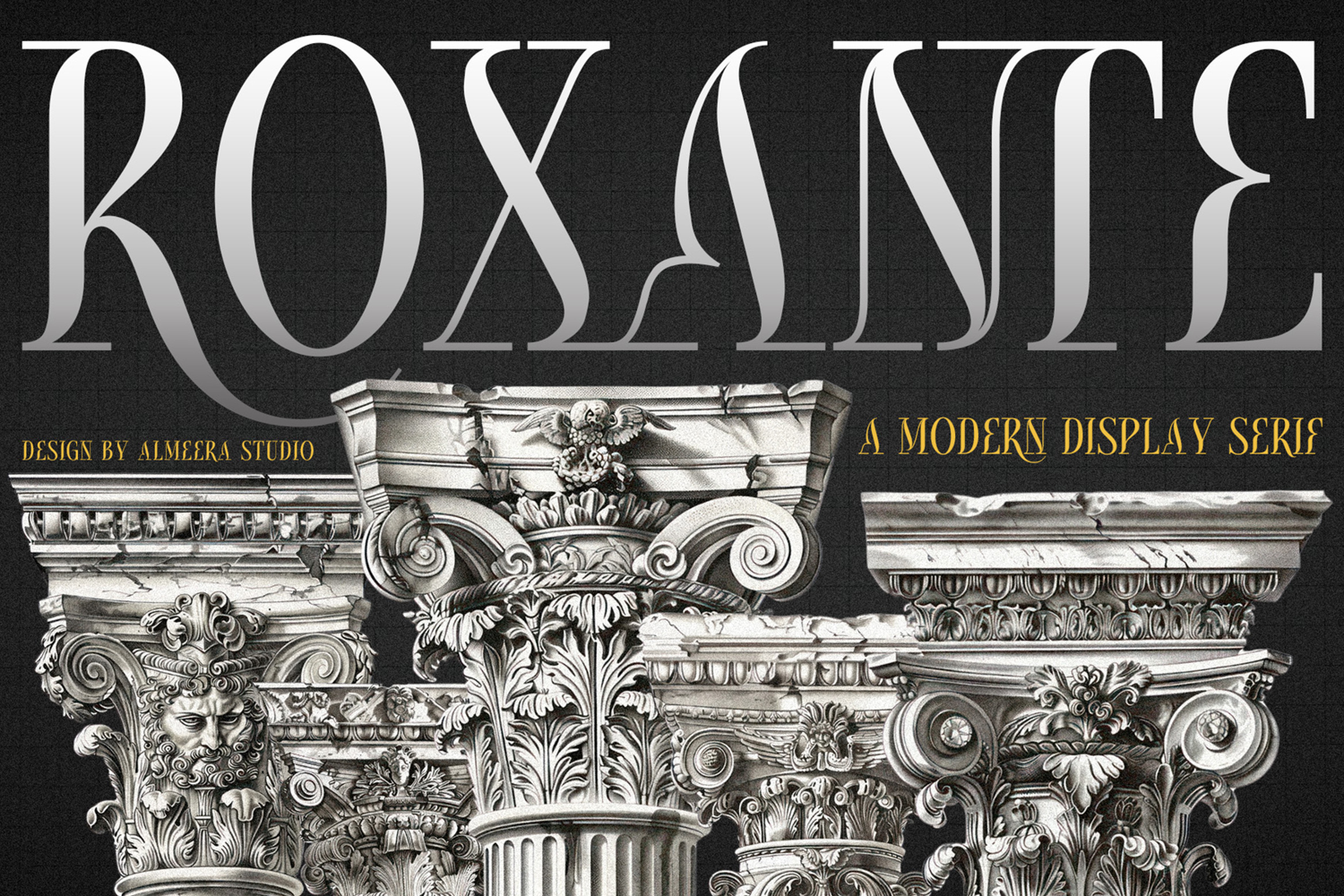
Roxante
Introducing Roxante - Modern Serif Font. Roxante is a modern display serif font, This type of font is very suitable for your various needs such as branding projects, logos, social media posts, advertisements, labels, product packaging, photography, wedding designs, watermarks, invitation product designs, stationery, and any project.